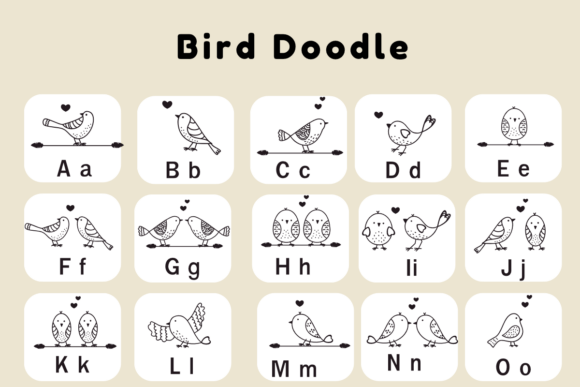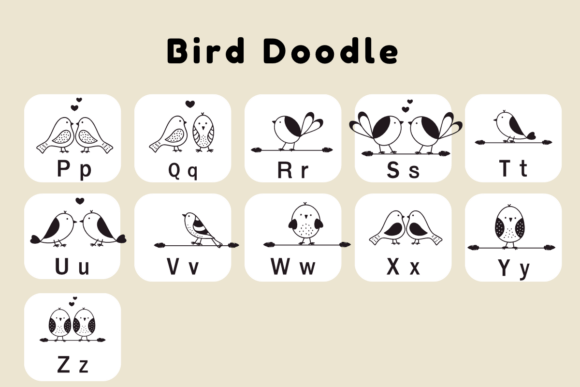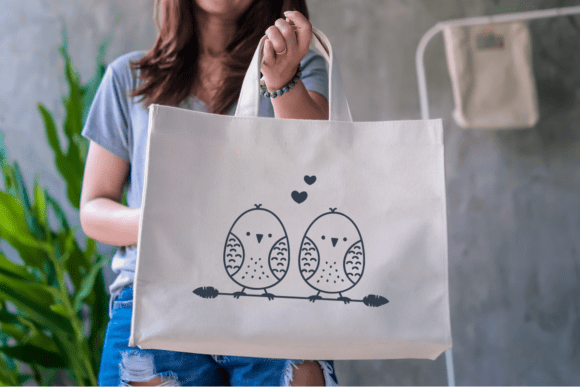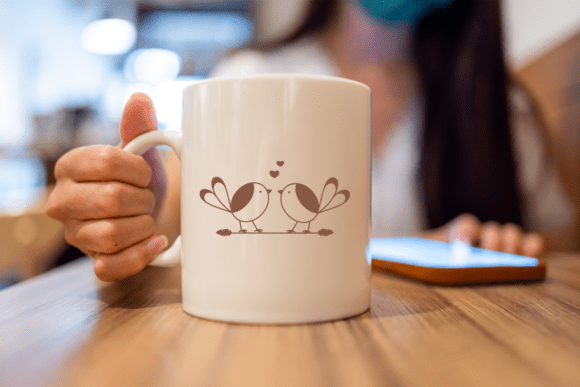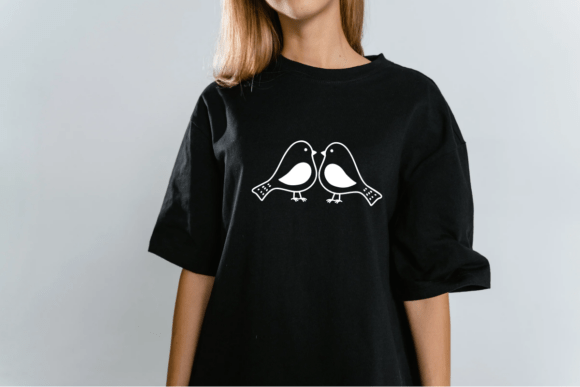
Bird Doodle Font
Bird Doodle is a dingbats font with theme with a sketch style. This font can enhance your creative projects such as wedding invitations, DIY, crafts, decorations, logos, and many other creative ideas.